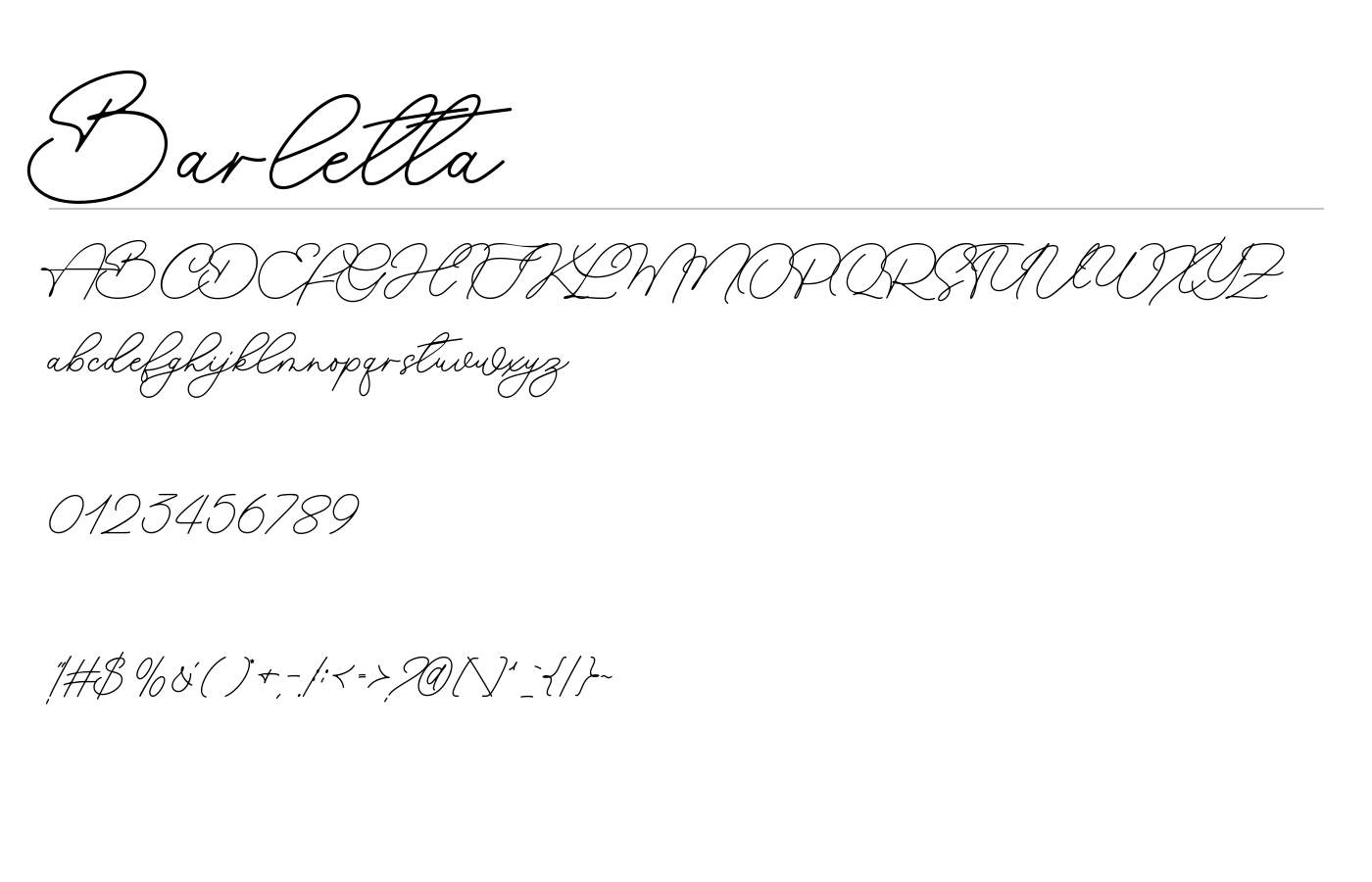
Barletta is an elegant, delicate script font with a light, flowing style that mimics natural handwriting. Its smooth, thin strokes and refined curves give it a sophisticated and graceful feel, perfect for use in wedding invitations, luxury branding, and stylish editorial designs where a refined and personal touch is desired. This font works best in decorative and display settings where its fine details can be fully appreciated.
Barletta Font
About Barletta Font